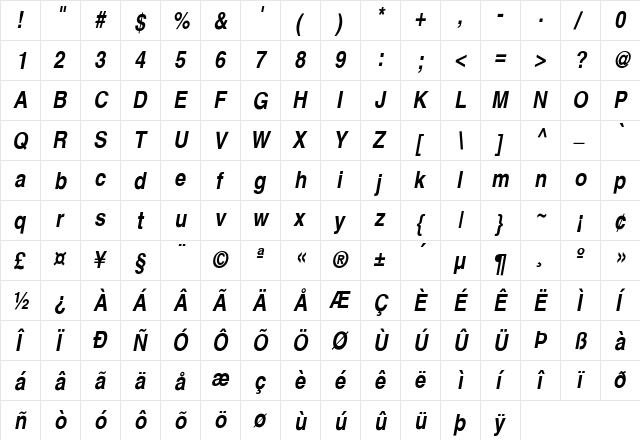
Design Context for Partridge-Narrow-BoldOblique Typeface
Partridge-Narrow-BoldOblique is a composed and adaptable typeface that performs quietly and consistently across a wide range of design contexts. Its italic angle brings a sense of urgency and motion to the letterforms. The heavy weight commands attention and anchors typographic hierarchies. Its narrow stance lets it pack a punch even in space-constrained designs.